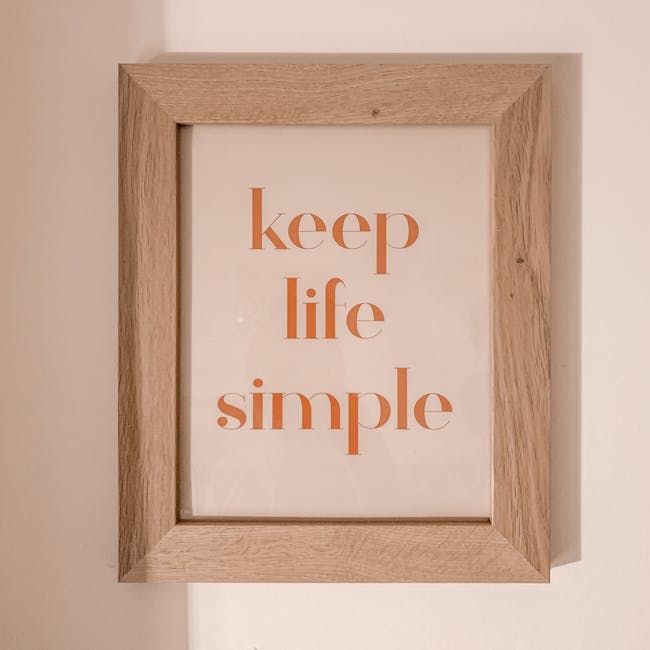
What is Typographie?
Typography is everywhere—it’s in the brands we trust, the logos we recognize, and even the menus from which we order our favorite meals. But what exactly is typographie, and why is it so critical in the realms of branding and logo design?
Introduction to Typographie
Typography isn’t just about picking a pretty font; it’s a vital component of visual communication that helps convey a brand’s message and personality. Imagine a brand like Coca-Cola without its iconic script. Would it have the same impact? Probably not. Typography plays a key role in shaping brand identity and ensuring that the design resonates with the intended audience. Whether you’re a designer, a brand strategist, or just someone curious about design principles, understanding typographie can profoundly influence how you perceive and create visual content.
Understanding the Basics of Typographie
To appreciate the power of typographie, one must first understand its fundamentals. Typography is more than just the art of arranging letters; it’s about creating a visual language that communicates messages effectively.
The Definition of Typographie
So, what is typographie? According to Wikipedia, it is the art and technique of arranging type to make written language legible, readable, and visually appealing. This involves the careful selection and manipulation of typefaces, spacing, size, and alignment to create harmonious and effective layouts.
Historical Evolution of Typographie
Typography has evolved significantly over centuries. From the early days of the printing press to the digital fonts of today, it has been a constant journey of innovation and adaptation. For a detailed timeline, you might find the History of Fonts insightful, as it outlines major advancements from the invention of the printing press to modern web fonts. Typography has grown from functional communication to a form of artistry that influences everything from branding to web design.
Key Elements of Typographie
Typography is composed of various elements, each playing an essential role in effective communication.
Font Types and Families
Fonts come in various styles, each conveying different emotions and messages. Serif fonts have small lines at the ends of characters, often perceived as traditional and reliable. Sans-serif fonts lack these lines, giving a modern, clean look. Script fonts mimic handwriting, adding an elegant or personal touch, while display fonts are decorative, used for attention-grabbing headlines.
Font Size and Hierarchy
Size matters in typography. Larger fonts grab attention, while smaller ones are ideal for detailed text. Establishing a hierarchy through size differentiates headings from body text, guiding readers through the content naturally.
Spacing and Alignment
Kerning and leading affect how text flows on a page. Kerning adjusts space between characters, ensuring uniformity, while leading (or line spacing) impacts readability. Alignment, whether left, right, center, or justified, organizes content visually, aligning it with the reader’s expectations.
Typographie in Branding and Logo Design
Typography is pivotal in branding, acting as the voice of the brand. It speaks volumes about the brand’s essence and helps create a memorable identity.
Creating a Brand Personality through Typographie
The right typeface can embody a brand’s personality. For instance, a luxury brand might opt for elegant script fonts to exude sophistication, while a tech startup could choose a sleek sans-serif to convey innovation. For an in-depth look, The Logo Company discusses how typography shapes brand perception.
Case Studies of Successful Typographie in Logos
Many notable brands owe part of their recognition to thoughtful typography choices. Consider a brand like Google, whose simple, colorful logo communicates approachability and innovation. Each font choice in a logo reflects the underlying values and identity of the brand.
Best Practices for Implementing Typographie
Consistency and thoughtful choices are key when using typographie effectively in design.
Consistency Across Platforms
Maintaining typographic consistency across various platforms ensures that the brand message is clear and recognizable, regardless of where it’s displayed. Whether it’s a website, print material, or mobile app, consistency builds trust and familiarity with the audience.
Choosing the Right Typeface for Your Brand
Selecting a typeface that aligns with your brand’s values is crucial. Consider how the font’s personality matches your brand’s mission and audience. For practical advice, 325 offers insights into choosing the right typeface for different brand personas.
Conclusion: The Impact of Typographie on Design
Typography is not just a design element; it’s a strategic tool that influences how audiences perceive a brand. It bridges the gap between visual appeal and functional communication, providing a foundation for effective branding and logo design. As we navigate an increasingly digital world, the thoughtful implementation of typographie can set brands apart, ensuring they resonate with their target audience. Whether you’re crafting a logo, designing a website, or creating a marketing campaign, typographic choices have the power to transform and elevate your brand’s identity.